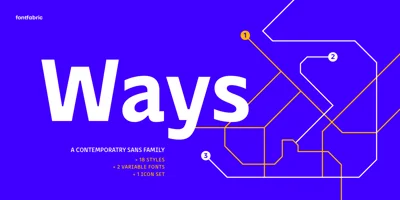
Ways Font
Ways Font is perfect for modern corporate branding, contemporary web design, clean business presentations, minimalist packaging design, startup identity materials, digital interface typography, professional documentation, sleek advertising campaigns, tech company communications, and versatile print applications. This refined sans-serif typeface creates sophisticated simplicity in both digital and traditional media.
What makes Ways Font exciting is its perfect balance of contemporary minimalism with exceptional readability that adapts seamlessly to any design context. The font features clean, geometric letterforms with subtle humanist touches and optimized spacing that ensure crystal-clear communication. Its versatile character design establishes an atmosphere of modern professionalism and accessible sophistication that resonates with diverse audiences.
Ways Font family includes comprehensive weights: Thin, Light, Regular, Medium, SemiBold, Bold, and Black versions, each available in upright and italic styles. Each variant maintains the font's clean aesthetic while providing designers with complete flexibility for creating sophisticated typography hierarchies and professional communication systems.
This versatile contemporary typeface brings modern clarity to projects requiring professional presentation. Whether you're designing corporate identity, digital products, or marketing materials, Ways Font delivers exceptional versatility and contemporary appeal. The font's clean geometry and optimized legibility ensure outstanding performance across various platforms and applications.